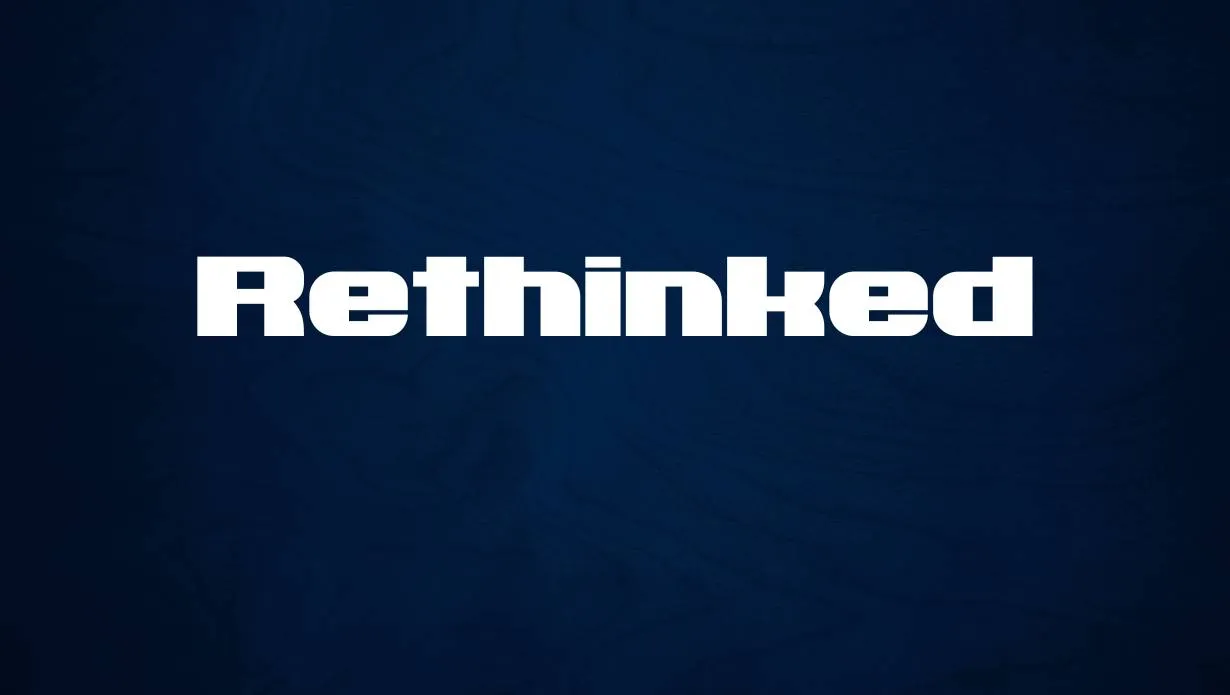
Rethinked Font comes in the bold Sans-Serif font created by a well-known designer Vladimir Nikolic along with an open font license. This typeface is available in TTF and OTF formats, it features a high readability and extra-bold appearance.
It also comes with bold and black characters in large and small letters, accents, alternates, digits, punctuations, and some specific characters. Moreover, you can pair this typeface with gotham font as it has a stunning pairing ability that can give more outstanding fallouts.
Rethinked Font Family